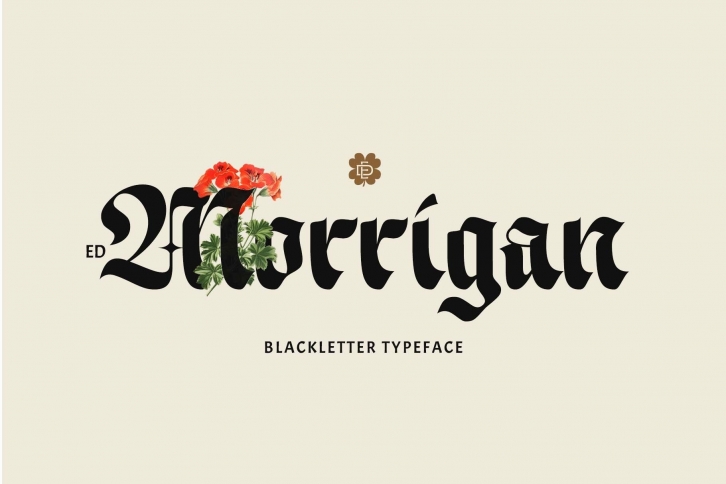
ED Morrigan typeface is a beautiful font that was designed by Emyself design. It's a great choice for designers and creatives who need such a font. It was released on April 28, 2021 and the file size is 11.38 MB. ED Morrigan typeface may give a more youthful, expressive and casual look to your project. It is a very beautiful, refined, elegant, and high-quality font.